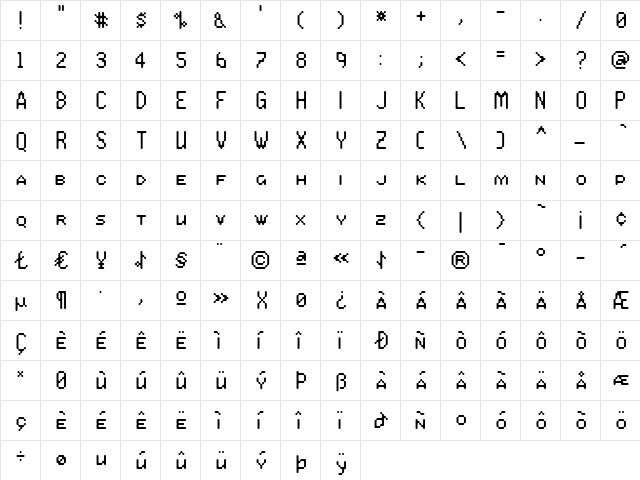
Praxis Regular Font Preview
Praxis Regular
Praxis Regular Font Details
Design Context for Praxis Typeface
Praxis is a composed and adaptable typeface that performs quietly and consistently across a wide range of design contexts.